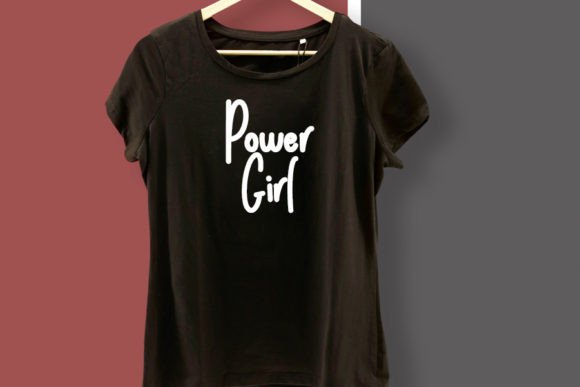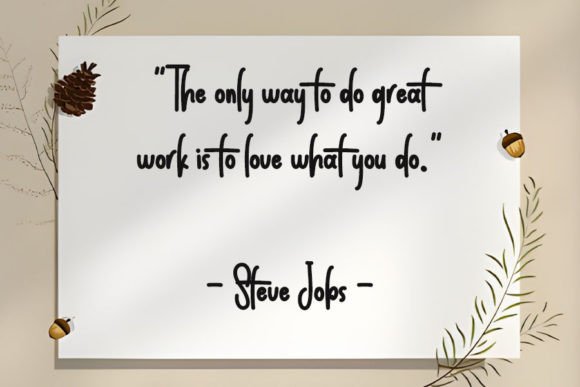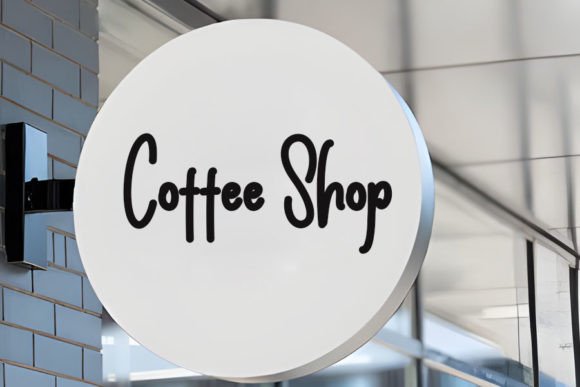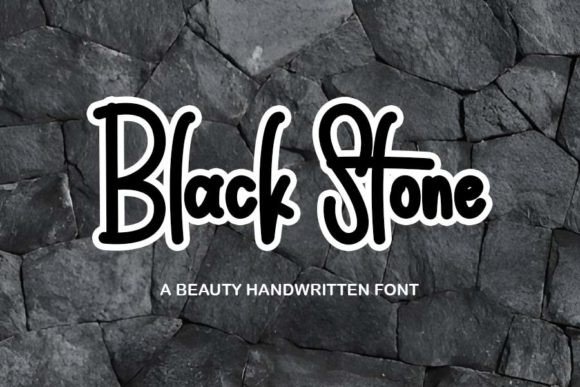
The Power of Black Stone Font: Elevate Your Designs with this Stunning Typeface
I’ll never forget the time I was working on a project for a client who wanted a bold, eye-catching font to make their brand stand out. I spent hours scouring the internet for the perfect typeface, but nothing seemed quite right. That was until I stumbled upon Black Stone Font. This gorgeous font has a unique, bold look and feel that’s perfect for designers, crafters, and creative hobbyists looking to take their designs to the next level.
- ✨ Instant Impact: This font makes a statement. Its bold, edgy design is perfect for headlines, titles, and anywhere you want to grab attention.
- ✅ Versatility: Despite its bold look, Black Stone Font works surprisingly well in a variety of design contexts, from modern and sleek to rustic and vintage.
- 💯 Legibility: Even at smaller sizes, this font remains clear and easy to read, making it perfect for body text and paragraphs.
- 🤔 Limited Ligatures: While Black Stone Font has some lovely ligatures, they’re not as extensive as some other fonts. This might be a consideration for very specific design projects.
- ⚠️ Not Ideal for Body Text: While the font is legible, its bold design can be overwhelming for long blocks of text. It’s best used sparingly for headings and titles.
The Story Behind Black Stone Font
Legend has it that Black Stone Font was inspired by the rugged, industrial landscapes of the American West. Its designer, a creative genius with a passion for typography, wanted to create a font that captured the raw energy and power of these vast, open spaces. And so, Black Stone Font was born – a bold, beautiful typeface that’s perfect for designers who want to make a statement.
| Font Name | Black Stone Font |
| Author | Peroscope Design |
| What type of designs is Black Stone Font best suited for? | Black Stone Font is perfect for designs that need a bold, eye-catching font, such as posters, flyers, brochures, and social media graphics. |
| Is Black Stone Font suitable for body text? | While Black Stone Font is legible, its bold design can be overwhelming for long blocks of text. It’s best used sparingly for headings and titles. |